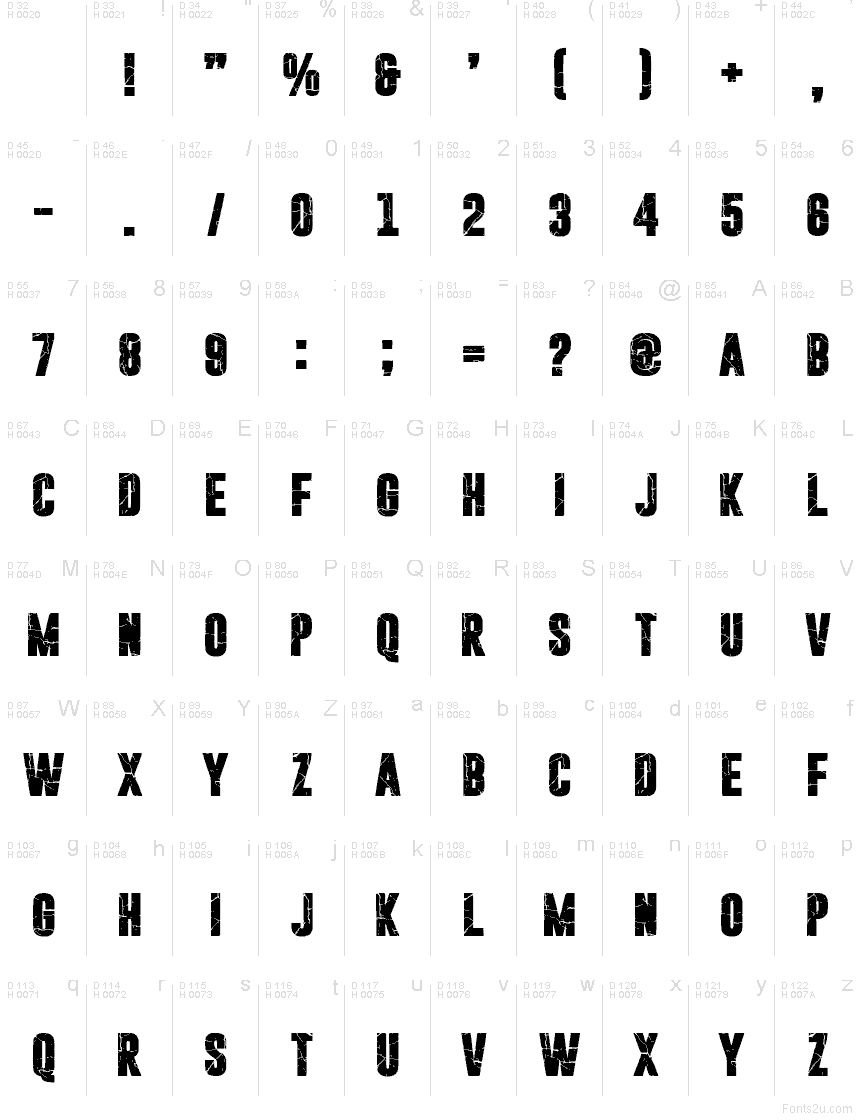
Cracked Bold Regular
Cracked Bold font by Riki Rudiyanto is a free distorted display typeface that looks like it’s been smashed, scuffed, and dragged across concrete. Thick blocky letters are slashed with sharp fractures and worn edges, giving every word a raw, shattered texture that jumps off the page. The rhythm is loud and heavy, with just enough spacing to keep it readable while still feeling chaotic and aggressive.
Using Cracked Bold, your titles instantly pick up a gritty, post-apocalyptic attitude that’s made for horror posters, metal album covers, streetwear branding, escape room graphics, game logos, and edgy social media promos. This free font shines at big sizes, so let it carry the headline and pair it with a clean, simple sans serif for the smaller supporting text.